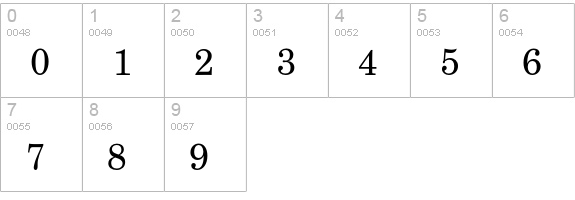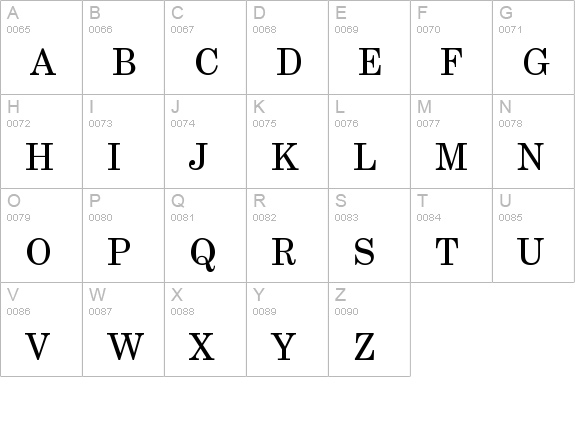
CenturySchoolbookEF-Reg Font Details
CenturySchoolbookEF-Reg is a classic and elegant serif font that exudes sophistication and professionalism. Its timeless design and clear readability make it ideal for various print and digital projects, from books and magazines to websites and branding materials. The font strikes the perfect balance between traditional and modern aesthetics, making it a versatile choice for any design need. What's even better is that CenturySchoolbookEF-Reg is available for free download at FontsMarket.com. This means you can easily access this high-quality font without any cost, making it a valuable addition to your font library. Whether you're a designer, a student, or a business owner, you can benefit from the beauty and functionality of CenturySchoolbookEF-Reg without breaking the bank. Download it today and elevate your projects with this exquisite typeface.